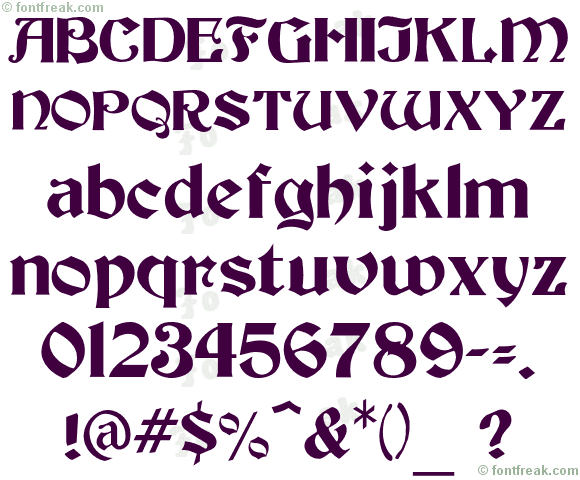
Beacon
Beacon — Character Map
About Beacon
Beacon by Gary David Bouton is a striking serif font that exudes a sense of warmth and elegance, making it a perfect choice for various creative projects. This font combines classic serif design with modern flair, showcasing a medium stroke weight that offers both readability and aesthetic appeal. The contrast between the thick and thin strokes adds a dynamic quality, while the ample spacing between characters enhances legibility, making it suitable for both print and digital applications.
The visual characteristics of Beacon are characterized by decorative elements that evoke a sense of sophistication. Its well-defined serifs and slightly rounded terminals lend a friendly yet professional appearance. This unique blend of traits makes Beacon an excellent choice for a range of use cases. It is particularly well-suited for wedding invitations, where its elegance can set a romantic tone. Additionally, Beacon shines in movie posters, capturing attention while maintaining clarity. Restaurant menus can benefit from its stylish yet legible design, enticing patrons with appealing typography. Furthermore, it serves as an attractive option for charity event materials, aligning with its "charityware" licensing, which encourages donations to worthwhile causes.
What truly makes Beacon stand out is its harmonious balance of tradition and modernity. It captures the essence of classic typography while remaining accessible and functional for contemporary design needs. Whether you are creating a heartfelt invitation or a compelling promotional piece, the Beacon font free download provides an exceptional tool to elevate your projects and engage your audience effectively.